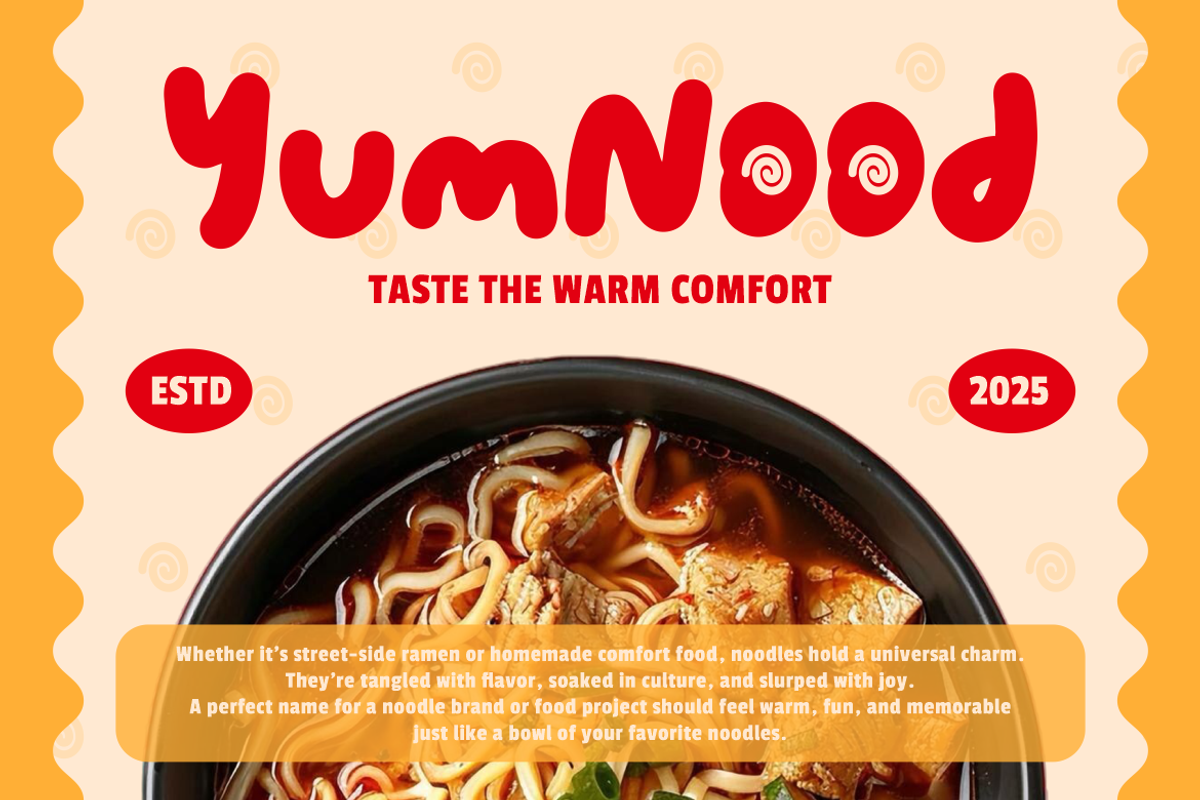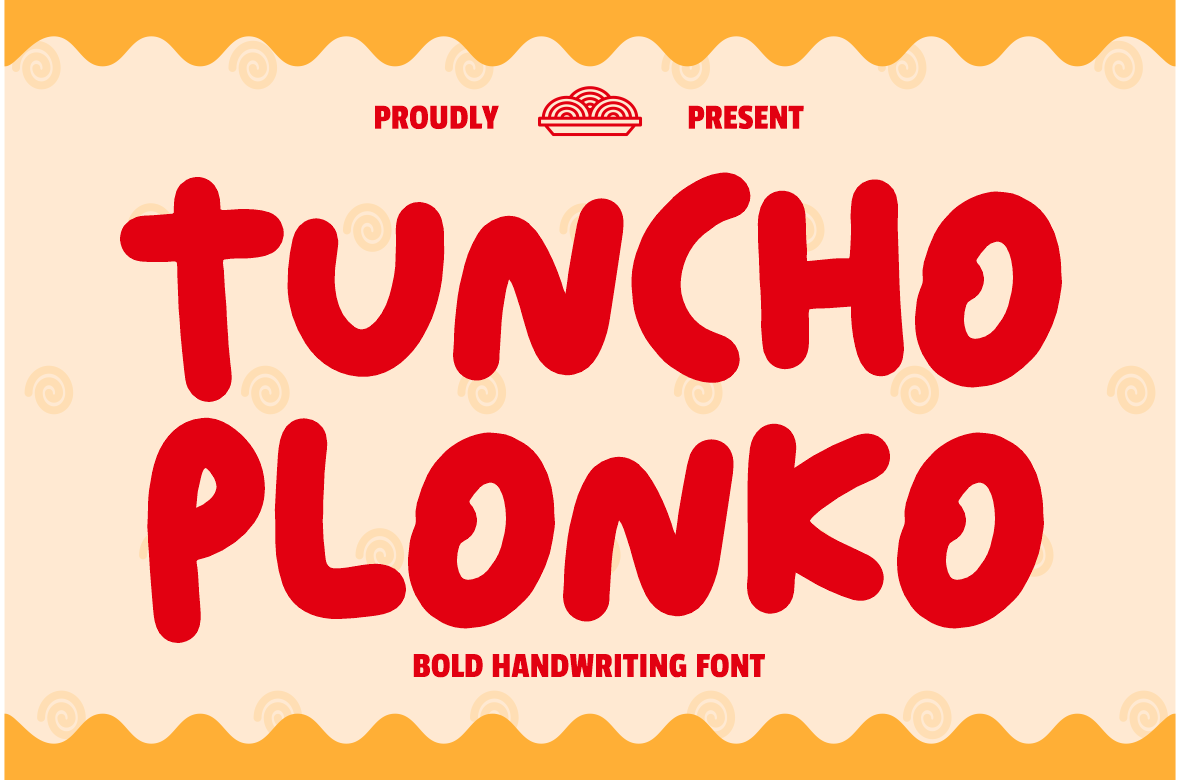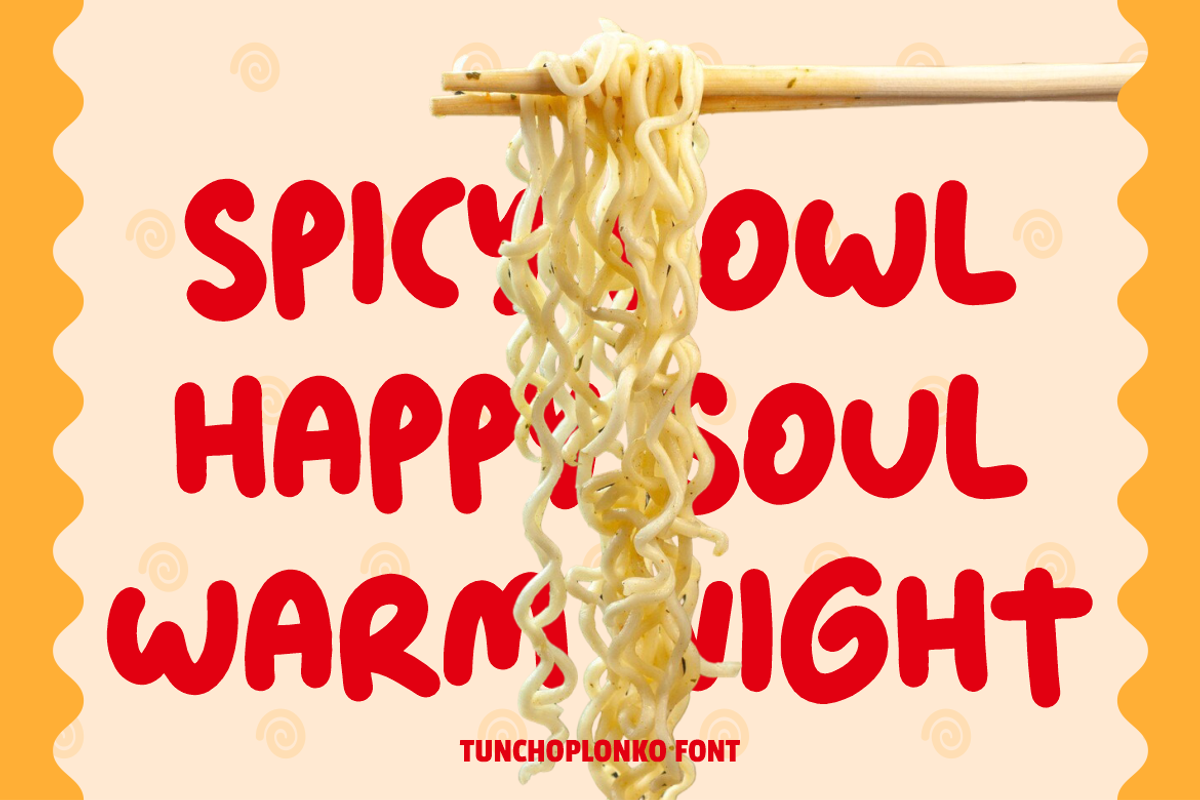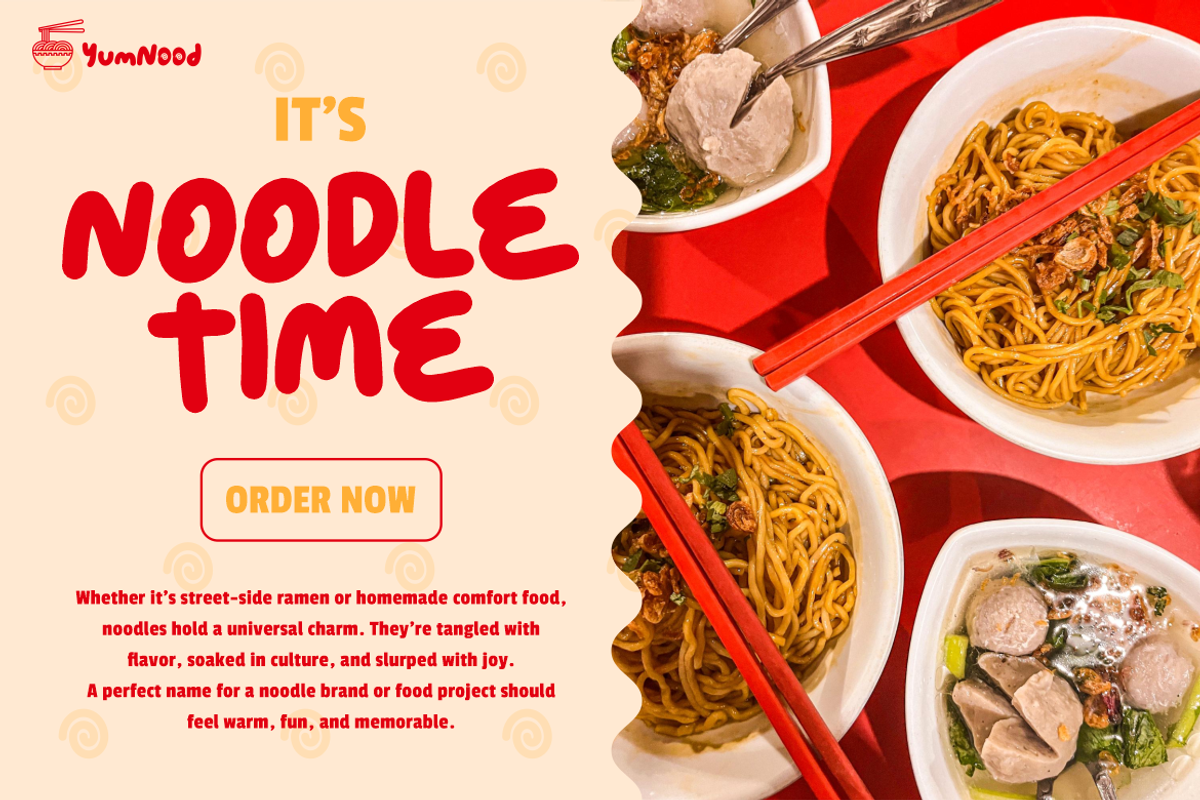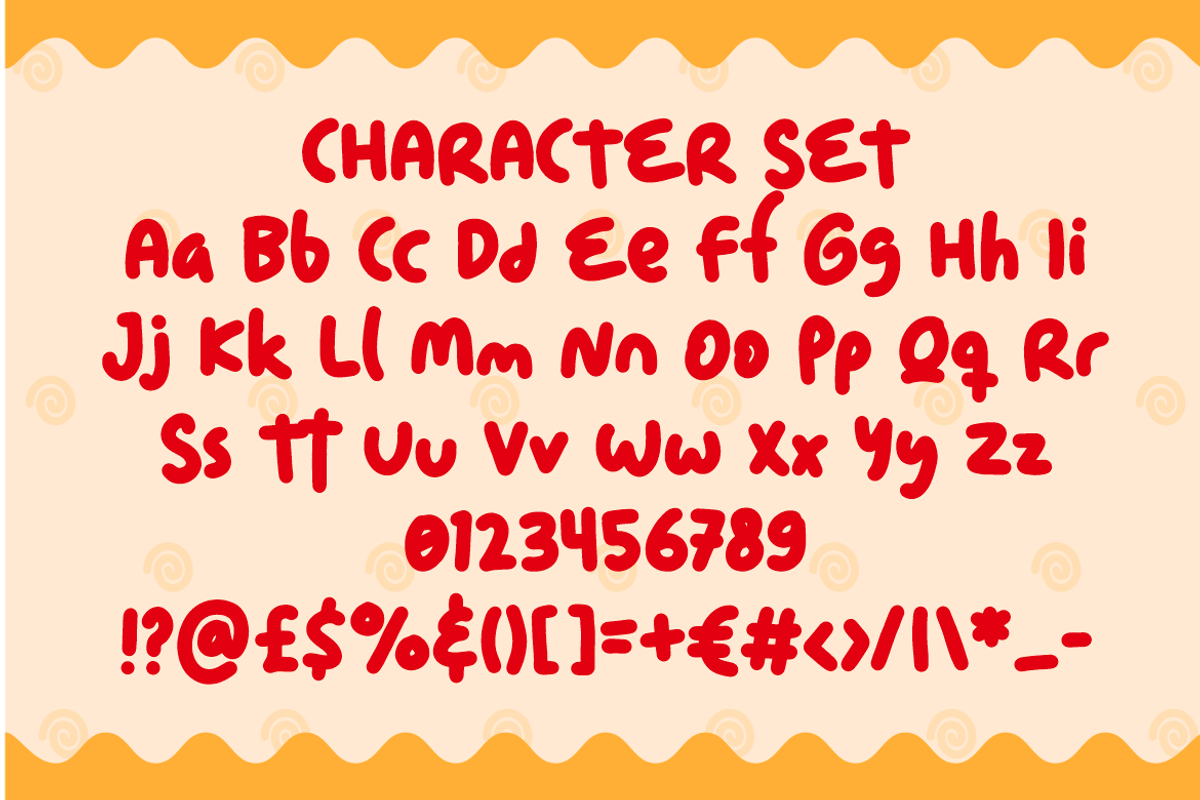
TunchoPlonko Bold Handwriting Font
Tuncho Plonko Bold Handwriting Font brings a bold, rounded, and playful touch to your creative projects. Each letterform carries a friendly, hand-drawn vibe with smooth curves and strong strokes that make the font easy to read while still looking fun and energetic. The bold thickness creates a strong presence, while the rounded edges add warmth and approachability. This balance makes it ideal for food-related designs, playful branding, or any project that needs to feel joyful and inviting.
Designed with a casual yet confident handwriting style, Tuncho Plonko Bold Handwriting Font is versatile enough for a wide range of uses. From logos, packaging, and posters to invitations, stickers, and social media graphics, it ensures your message stands out with a cheerful personality. Whether you’re crafting branding for a food business, designing a fun children’s book cover, or creating eye-catching advertising, this font will give your work a bold and friendly voice. With its memorable style and modern charm, Tuncho Plonko Bold Handwriting Font is an excellent choice for both digital and print projects.